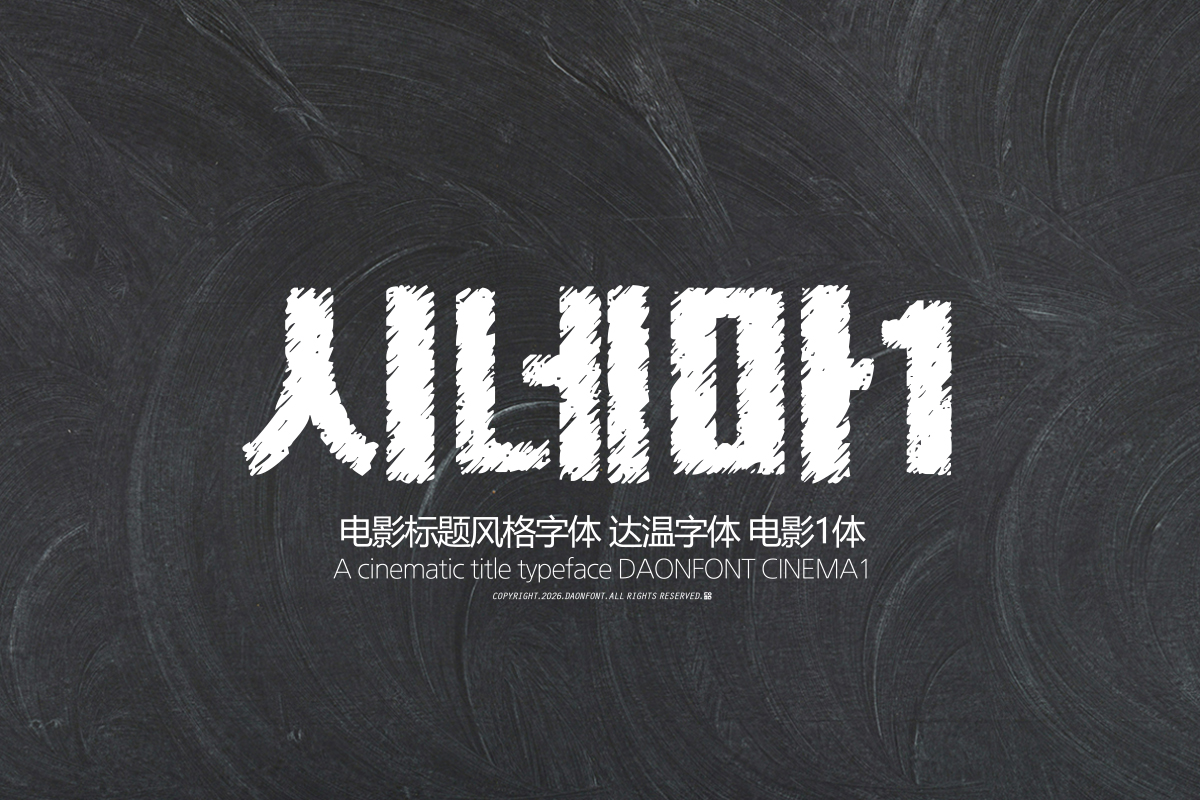
DAON CINEMA1
DaonFont 'CINEMA1' is a Korean typeface designed for displays that conveys an intense and dramatic atmosphere, much like a movie title. Based on bold and solid strokes, yet featuring a rough texture on the surface and outline of the characters, this font displays a unique character distinct from the sleek and organized standard Gothic typefaces.